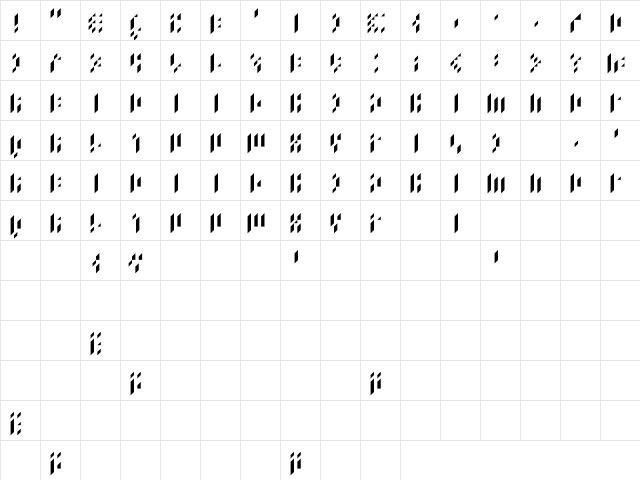
DS 2D Regular
Design Context for DS 2D Typeface
DS 2D is a composed and adaptable typeface that performs quietly and consistently across a wide range of design contexts.